About four years ago, I received a surprising email—not surprising because of what it said, but because of the way it looked. The text was set in Courier, that font you see in movies when hackers write code on a black screen. The email became sort of a running joke at the office, and I couldn’t take this person seriously when they emailed again.
That’s judgmental, I know, but it turns out I’m not alone. A new study suggests that fonts can indeed change the way we feel about a certain message. The study was run by Monotype, the world’s biggest type foundry, which partnered with applied neuroscience company Neurons. Together, they surveyed 400 people in the UK, who were presented with different words laid out in three contrasting types. The scope of the study is fairly small, and the motivations behind a type foundry publicizing a study about the impact of type can’t be ignored. But the study does confirm one thing: Fonts are subjective, and they can mean different things to different people.
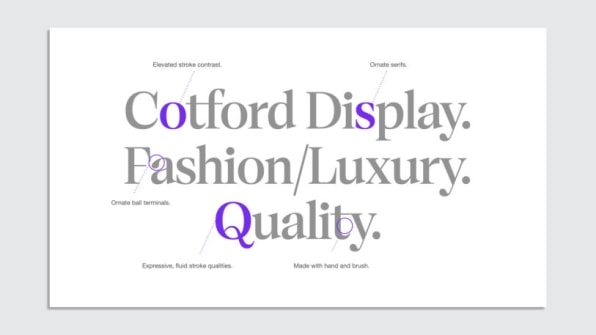
This isn’t the first study to explore the impact of different fonts. In 2018, a team of researchers at Australia’s RMIT University developed a typeface they said could boost memory retention (the font was difficult enough to engage the readers, yet legible enough so as to not obstruct the reading) but the impact of that font was later disproved. More recently, a major study determined that some fonts, like Garamond EB and Montserrat, were harder for older people to read. But the impact of typefaces on emotions remains largely unstudied, at least when it comes Latin languages.
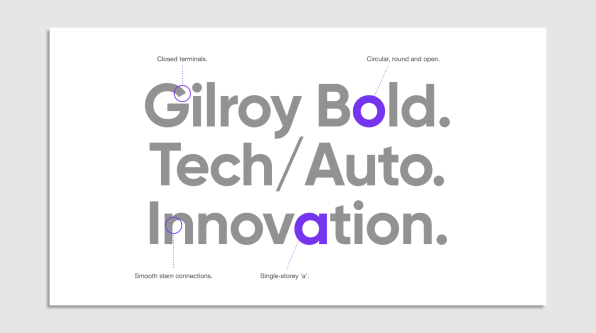
There’s a reason this hasn’t been done at scale. “[Typography] is your tone of voice,” says Phil Garnham, a senior creative type director at Monotype. “And the aroma, the feeling that generates is really important and it’s subliminal.” Indeed, subconscious reactions can be hard to qualify, let alone quantify. Also, fonts go hand in hand with words—so, how do you distinguish between people’s reaction to the meaning of a word compared to the font in which it’s presented?
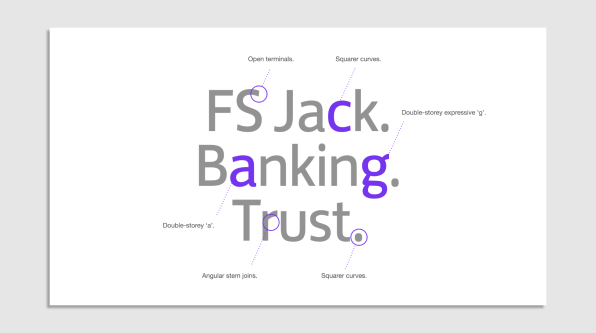
The founder and CEO of Neurons, Thomas Z. Ramsøy, explains that when we try to perceive the meaning of a word, the activity is reflected in the temporal lobe, a part of the brain that helps us process emotions. He says fonts can also trigger an emotional response. “More positive emotional responses are seen for softer and more recognizable font types,” he says. “Negative emotions are often triggered by pointy and sharp font types.” But to distinguish between the two, the study had to give people the same words, laid out in different fonts.
In total, the team surveyed 400 men and women between the ages of 18 and 50. Each participant took the survey online and was given three kinds of stimuli: single words (“quality,” “trust,” and “innovation), those same words in a sentence (“quality never goes out of style”) and that same sentence coupled with the name of a random brand (like Skova or Smith’s Bank).
Each of these stimuli was set in three contrasting typefaces: FS Jack, a soft, lightweight sans serif; Gilroy, a bolder, more geometric sans serif; and Cotford, a serif font that looks more historical. (Monotype designed two of the three fonts, excluding Gilroy.)
The findings showed that one typeface can elicit a more positive response than another by up to 13%. When participants were shown the word “quality” in Cotford, they found it 10% more memorable than the two other fonts. Conversely, when they were shown a full sentence in Gilroy, they found it stood out by 12% compared to the other two. These numbers may not seem like a lot, but Mike Storm, Neuron’s chief operating officer and partner, says that any difference above 5 to 6% is considered “significant.”
As Ramsøy explains, some fonts can trigger existing associations with nostalgic brands. “Winding fonts work great for grandma’s jam products,” he says. To avoid preexisting associations, the team chose fonts that aren’t directly associated with particular brands but can be associated with three sectors more broadly: Gilroy for the tech industry; Cotford for luxury and fashion; and FS Jack for banking and financial services (in other words, a large sampling of Monotype’s client portfolio).
Inevitably, though, the choice of words matters, too. Marie Boulanger, a Monotype brand designer who also studied linguistics, says she chose words that come up often in brand mission statements. But if the words had been different, it’s likely the results would’ve been different, as well. (The team considered running the tests with nonsense words, but “you never look at type in a vacuum,” says Boulanger, so real words made the most sense.)
Ultimately, she admits, the study only scratches the surface. Do older people prefer the same type as younger folks? Is there a gender bias? What happens when you add 10 or 20 more fonts to the equation? And do results vary based on where you live? The team didn’t study any of these factors, but Storm says a more in-depth study could help them dig in more. “We would be very interested in looking at demographical and regional differences, to see if culture has a large impact on this,” he says.
For now, we know that different fonts can elicit different emotions based on the same word. And given that participants were given between half a second and 2.5 seconds to choose (most answered within 1 second), it’s clear that those reactions come from the gut. Until a more in-depth study can be run, that’s a promising start.
In the meantime, I know where I stand on Courier.